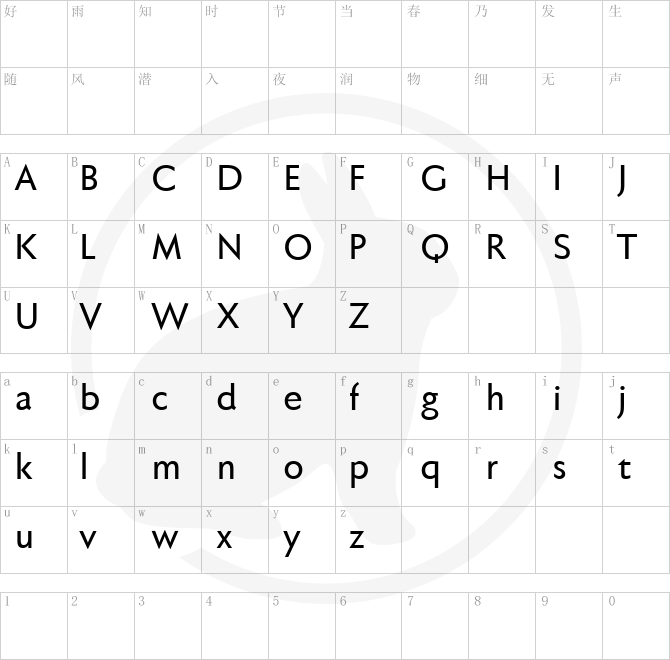
- Font Name:Faber Sans Pro reduced
- Subfamily:65 Kraeftig
FaberSansPro-Kraeftig.ttf is a very beautiful artistic font, FaberSansPro-Kraeftig.ttf is widely used in the design and printing of various books and pictures,FaberSansPro-Kraeftig.ttf has a strong visual impact,FaberSansPro-Kraeftig.ttf is a commonly used font in newspapers, magazines and books, and is used in posters, e-commerce Poster design, store design, logo design, font design and other fields.FaberSansPro-Kraeftig.